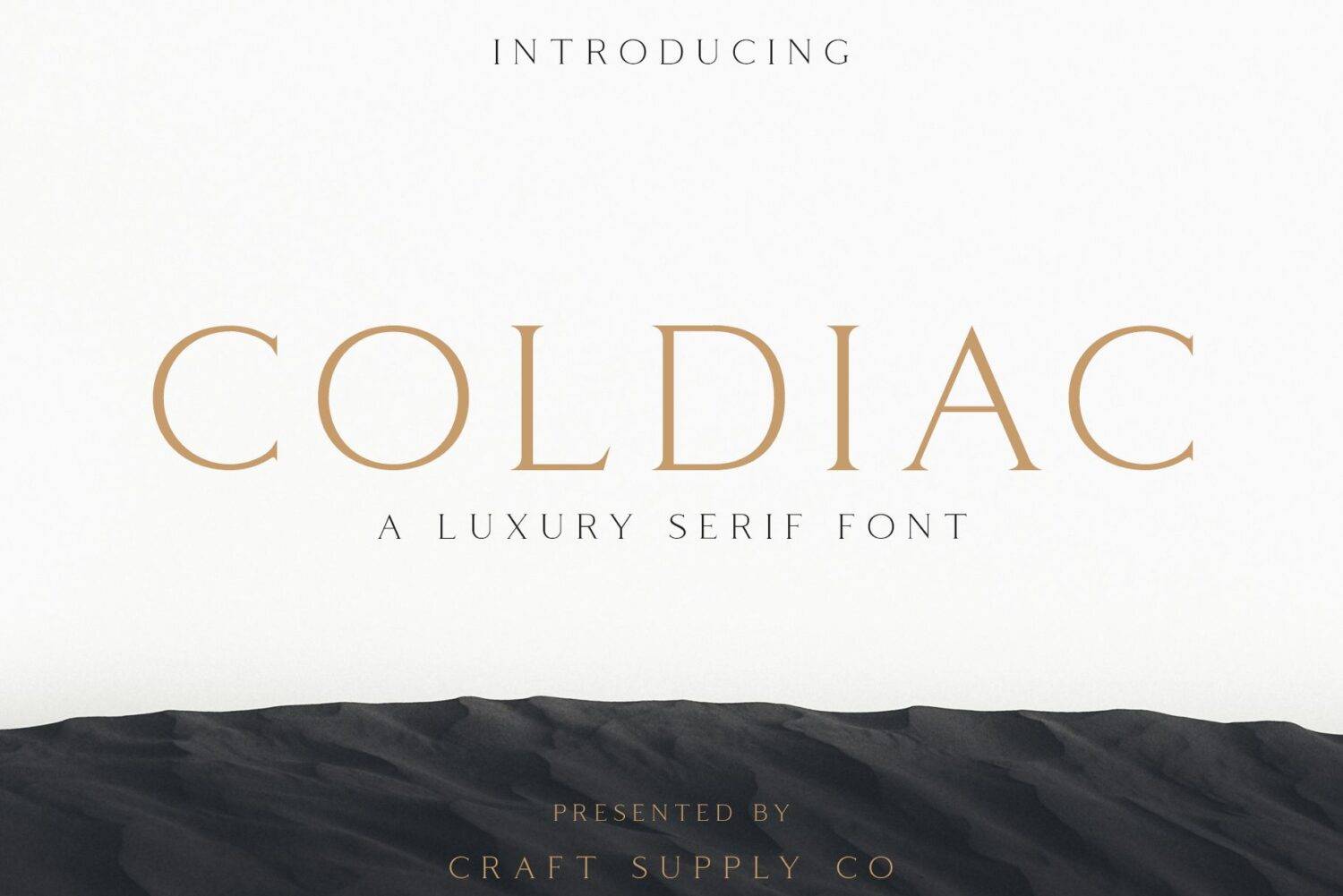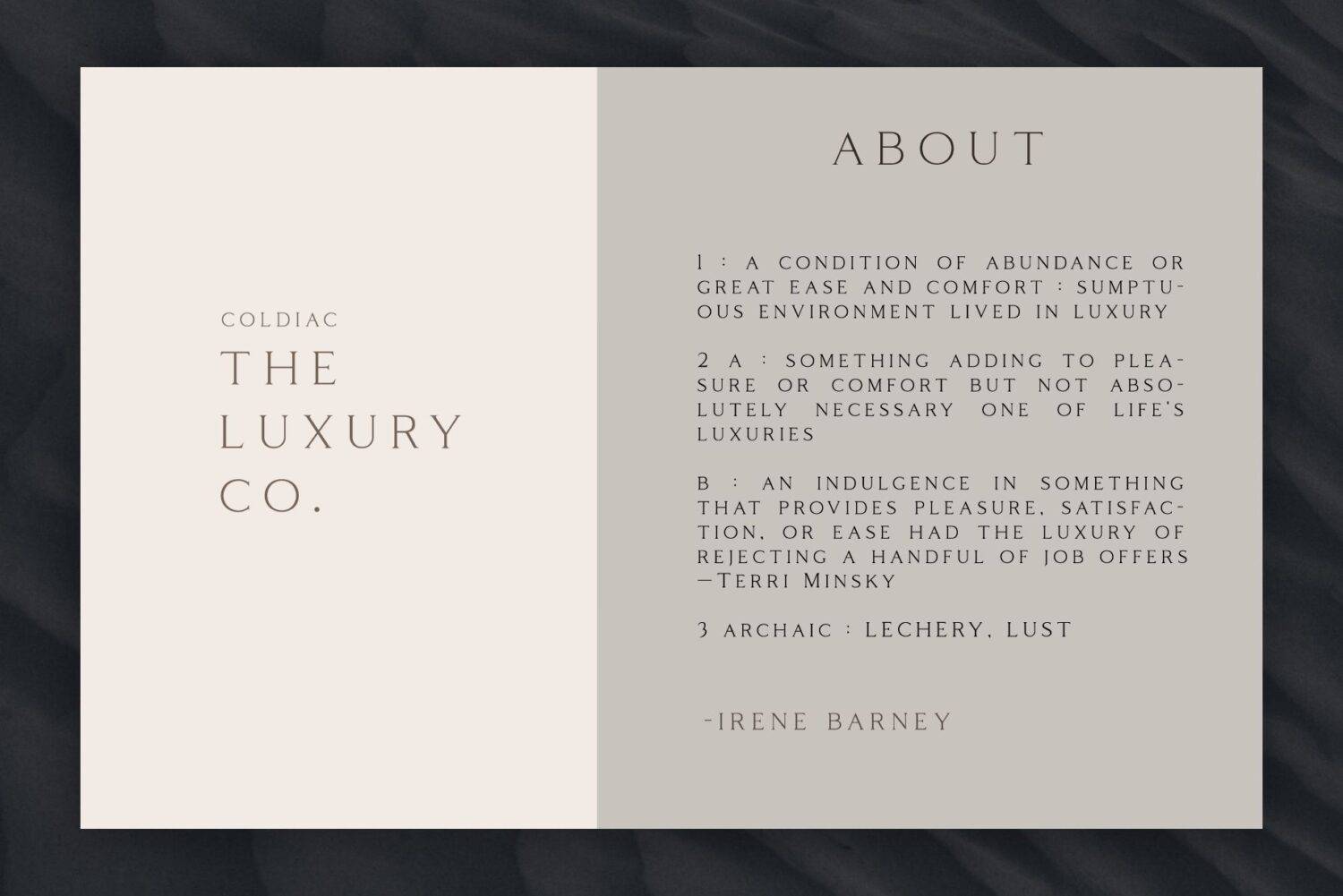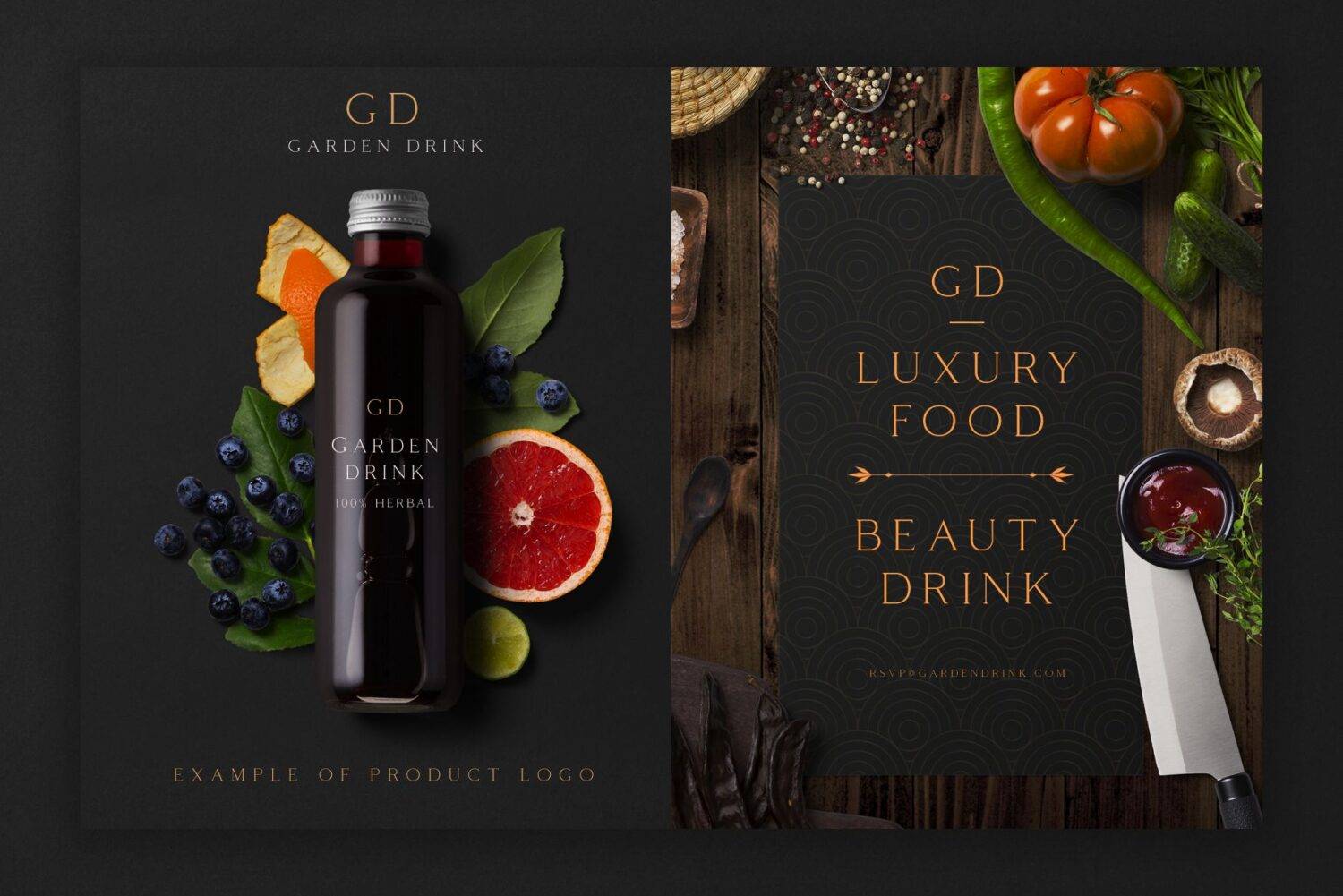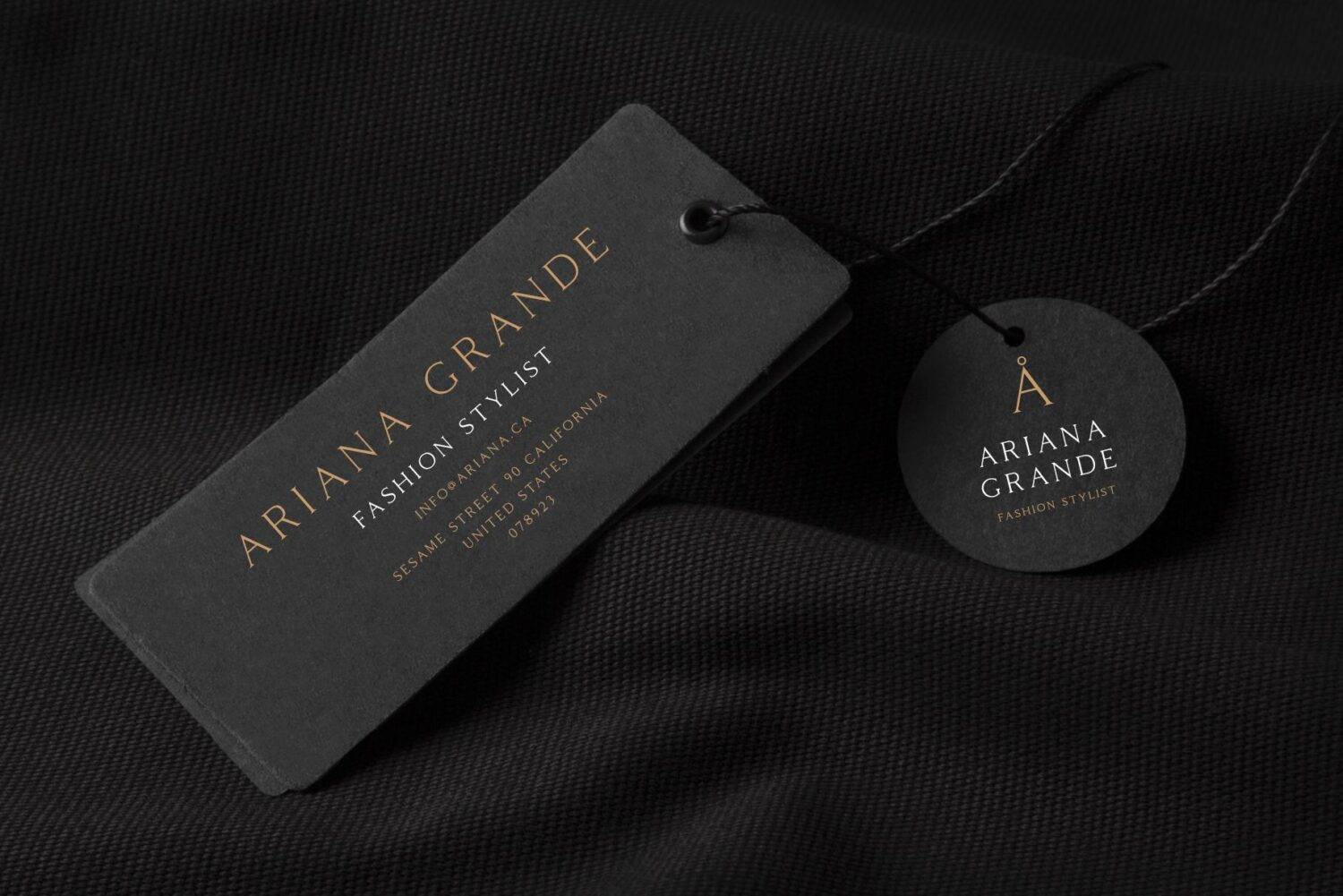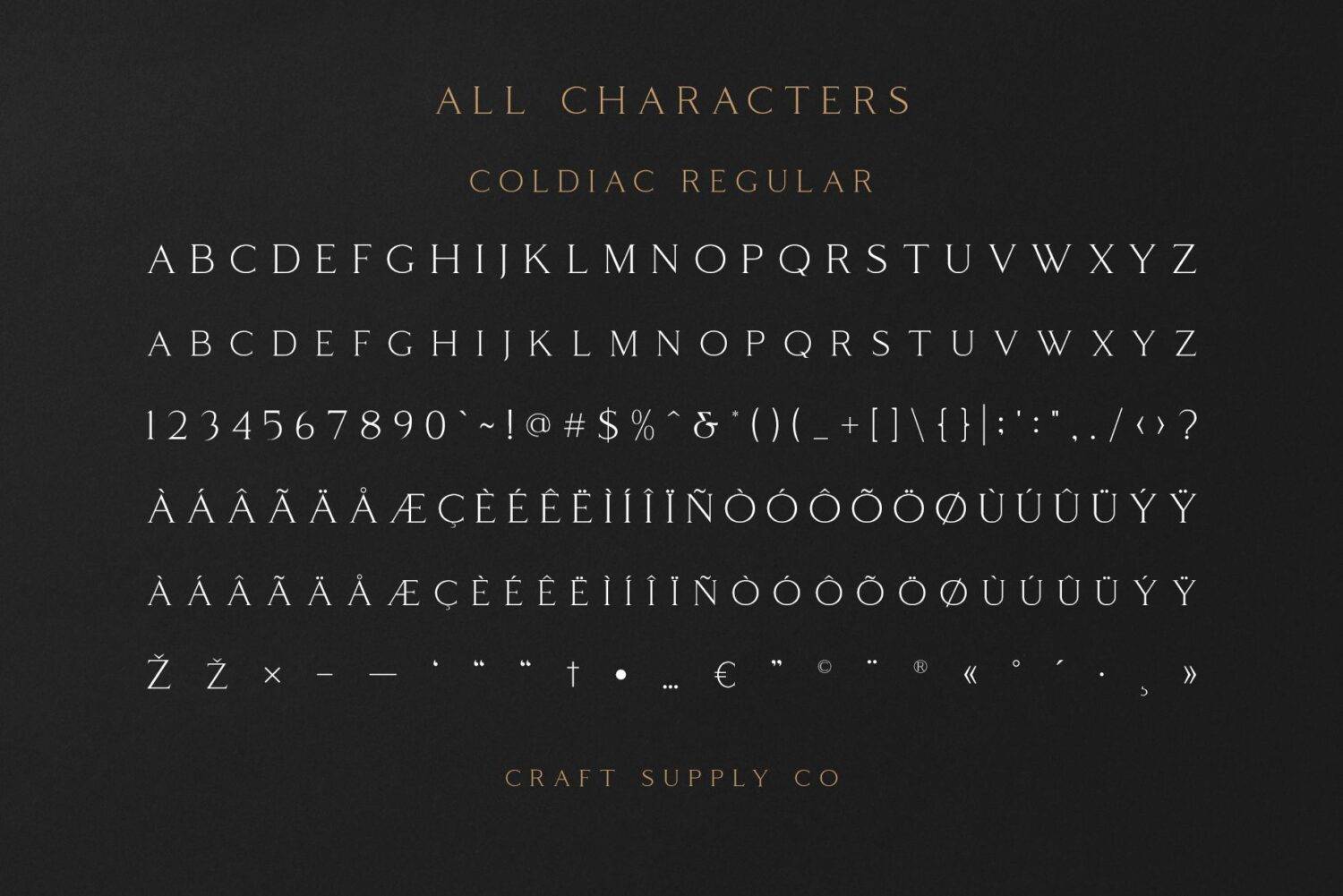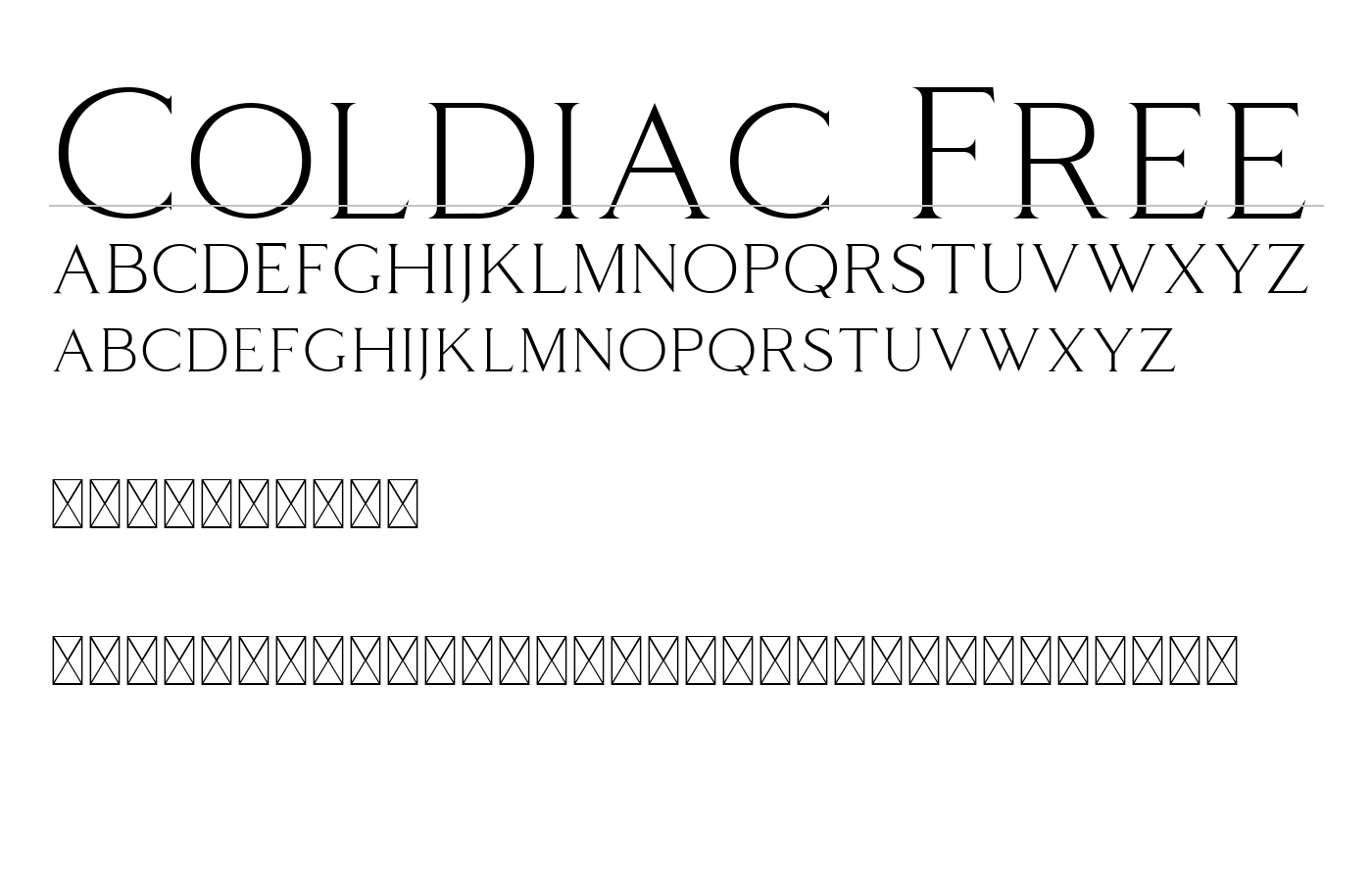
Coldiac is an elegant serif font featuring a high contrast between thick and thin strokes with thin, sharp serifs that give it a refined, classic feel. Its tall, slender letterforms and clean lines make it ideal for sophisticated branding, editorial headlines, and luxury packaging where a timeless, stylish impression is desired. This font's graceful appearance lends itself well to projects needing a sense of tradition and high-end appeal.
Coldiac
About Coldiac